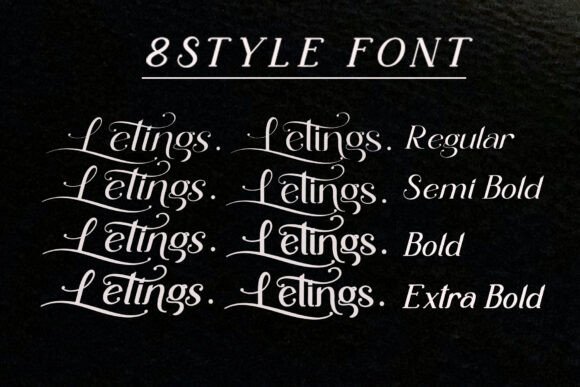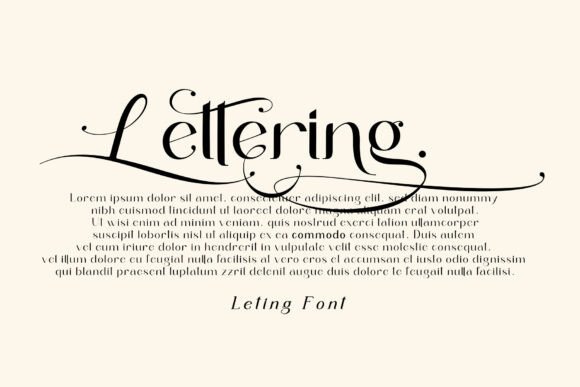
Introduction to Letings Font
As you sit in front of your computer, staring at a blank canvas, the creative spark is lit. You envision a stunning design that captures the essence of your message, and the right font is the key to unlocking that vision. In this moment, you crave a font that not only communicates your ideas but also adds a touch of sophistication to your creation. Enter the Letings Font, a modern serif font that is poised to revolutionize the world of typography.
With its sleek design and versatility, the Letings Font is an invaluable resource for designers seeking to elevate their creative projects. Whether you’re working on a logo, brochure, or website, this font is sure to make a lasting impression. Its eight distinctive thickness styles and unique swash and alternative options ensure that every design is a masterpiece.
Key Features of Letings Font
- Unique, modern design style that can add a touch of elegance to any creative project
- Perfect for use in graphic design, digital art, and other design-related fields
Honest Review: Letings Font
As a designer, I’m always on the lookout for high-quality fonts to elevate my creative projects. Recently, I stumbled upon the Letings Font, and I must say it’s a great addition to my design resource library.
- ✨ Unique and modern design aesthetic: The Letings Font has a distinctive look that sets it apart from more common fonts.
- ✨ High-quality design: The font is well-crafted, with clear and readable characters.
- ⚠️ Limited character set: The font has a relatively small character set, which may limit its use for certain projects.
- ⚠️ Not ideal for transparent background: The font’s design may not be suitable for use on a transparent background, as it may not be visible or may appear distorted.
Overall, I’m impressed with the Letings Font. It’s a great resource for designers who want to add a touch of modernity to their projects. However, its limitations should be taken into account when choosing this font for a specific project.
Getting the Most Out of Letings Font
To get the most out of the Letings Font, use it in combination with other design elements to create a cohesive and visually appealing design. Experiment with different font sizes, colors, and settings to find the perfect look for your creative project.
The Letings Font is ideal for use in a variety of creative projects, including logos, business cards, brochures, and websites. Its high-quality design makes it a great resource for designers looking to add a touch of elegance to their work.